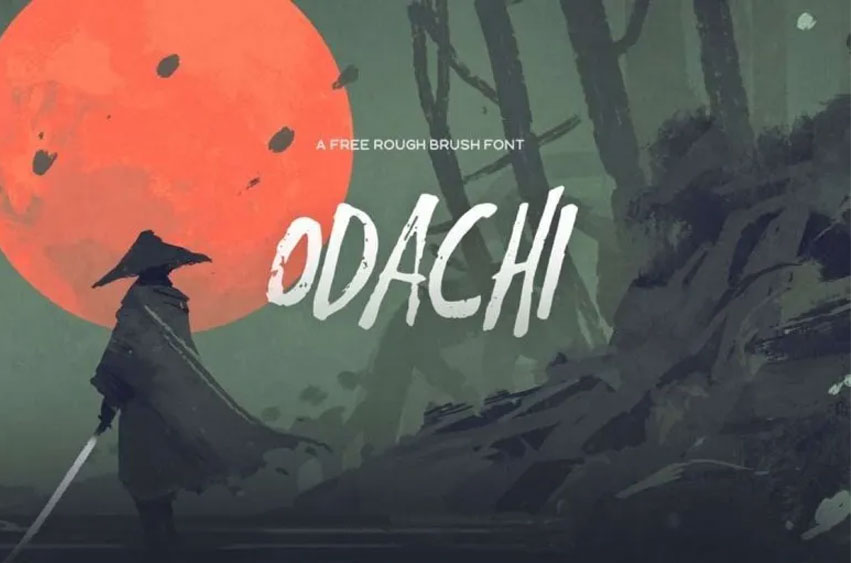
Odachi Font
Odachi Font is a premium brush font created by Mehmet Reha Tugcu and freely available for both commercial and personal use.
The free version includes both uppercase letters as well as some special characters for download.